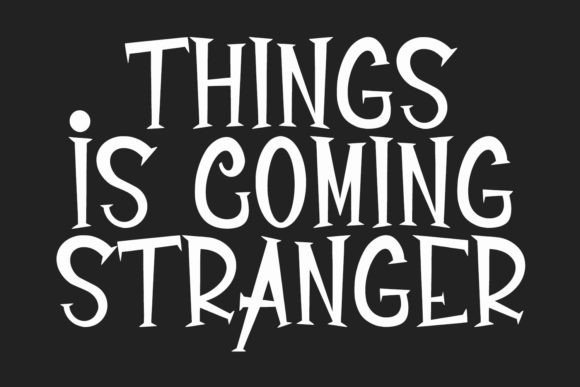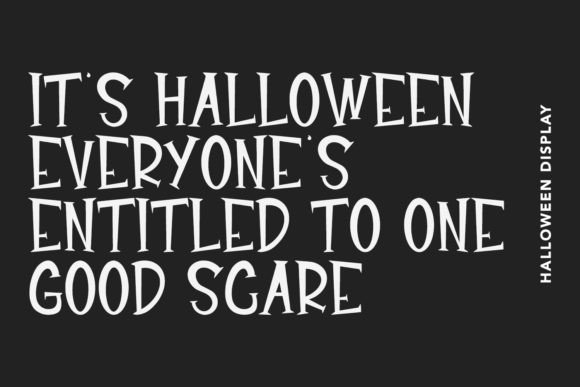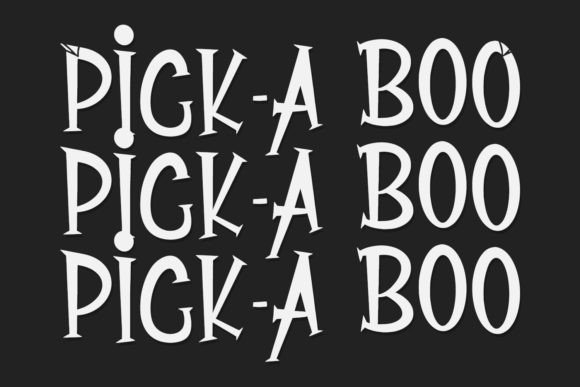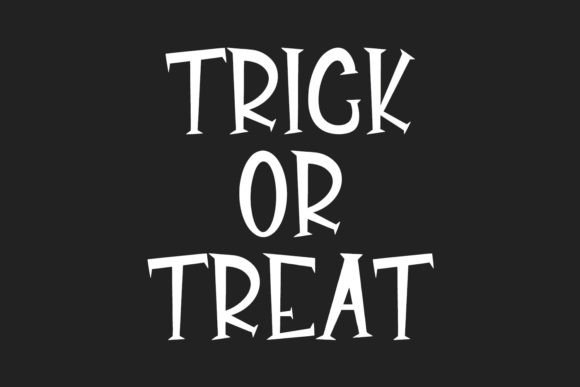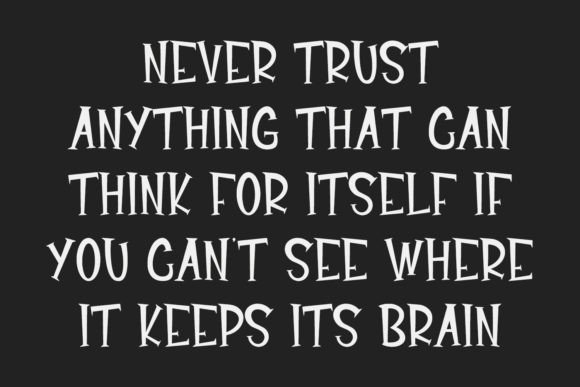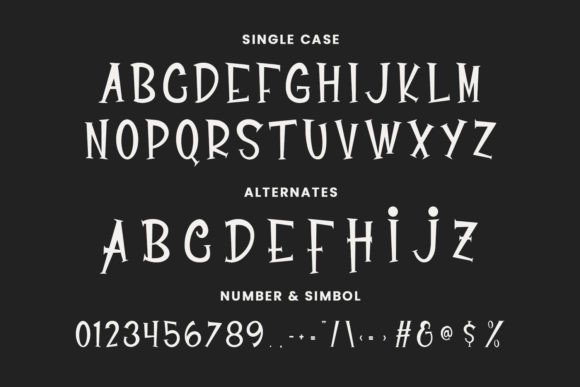
Unleash Your Creativity with Confringo Font: A Spooky-ooky Halloween Display Font
Are you looking for a font that will make your designs stand out this Halloween season? Look no further than Confringo Font, a bold and fun display font that’s perfect for creating spooky-ooky designs. With its unique blend of ligatures and alternates, Confringo Font is sure to add a touch of creativity to your work.
What Makes Confringo Font So Special?
Confringo Font is a Halloween display font that’s designed to make a statement. Its bold stroke and fun character make it perfect for creating eye-catching designs that will grab attention. But what really sets Confringo Font apart is its inclusion of ligatures and alternates. These special characters allow you to add an extra layer of creativity to your designs, making them truly unique and eye-catching.
Multilingual Support for Global Designers
Confringo Font is more than just a stylish font – it’s also incredibly versatile. With support for over 100 languages, designers from around the world can use Confringo Font to create stunning designs that reach a global audience. Whether you’re designing for a client in Europe, Asia, or the Americas, Confringo Font has got you covered.
Confringo Font is a versatile font that can be used for a wide range of design projects. Here are just a few ideas to get you started:
• Logo Design: Confringo Font’s bold and playful character makes it perfect for creating eye-catching logos that will help your brand stand out.
• Social Media: Use Confringo Font to create engaging social media posts that will grab attention and drive engagement.
• Movie Titles: Confringo Font’s bold and dramatic character makes it perfect for creating movie titles that will set the tone for a thrilling film.
• Books Titles: Use Confringo Font to create eye-catching book titles that will make your book stand out on the shelves.
• Short Text and Long Text: Whether you’re designing a short text or a long text, Confringo Font is a great choice. Its clear and legible character makes it easy to read, even at small sizes.
Pairing Confringo Font with Script or Serif Fonts
Confringo Font is a versatile font that can be paired with a variety of other fonts to create stunning designs. For a truly creative look, try pairing Confringo Font with a script or serif font. This will add an extra layer of depth and interest to your designs, making them truly stand out.
Get Creative with Confringo Halloween Display Font
Confringo Font is a powerful tool for designers and crafters who want to create stunning designs this Halloween season. With its bold and playful character, multilingual support, and versatility, Confringo Font is the perfect choice for a wide range of design projects. So why wait? Download Confringo Font today and unleash your creativity!
Key Features of Confringo Font
• Bold and playful character: Confringo Font’s unique character makes it perfect for creating eye-catching designs.
• Multilingual support: Confringo Font supports over 100 languages, making it a great choice for global designers.
• Ligatures and alternates: Confringo Font’s special characters allow you to add an extra layer of creativity to your designs.
• Versatile: Confringo Font can be used for a wide range of design projects, from logo design to social media posts.
In conclusion, Confringo Font is a powerful and versatile font that’s perfect for designers and crafters who want to create stunning designs this Halloween season. With its bold and playful character, multilingual support, and versatility, Confringo Font is a great choice for a wide range of design projects. So why wait? Download Confringo Font today and start creating!